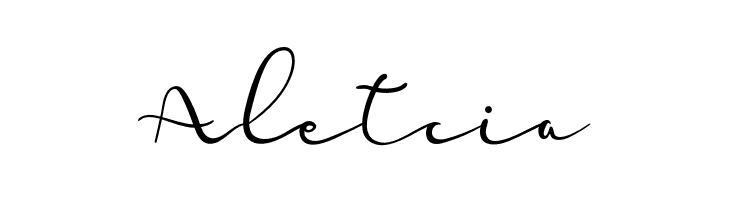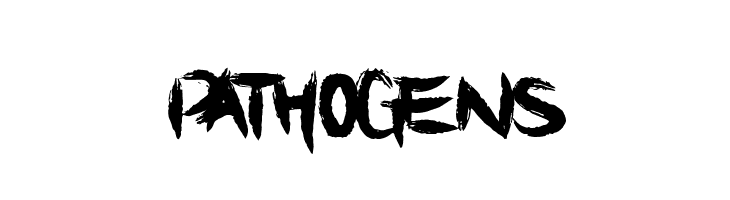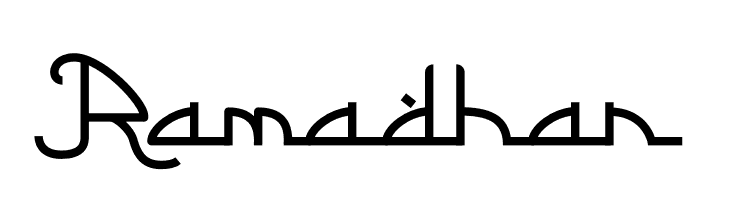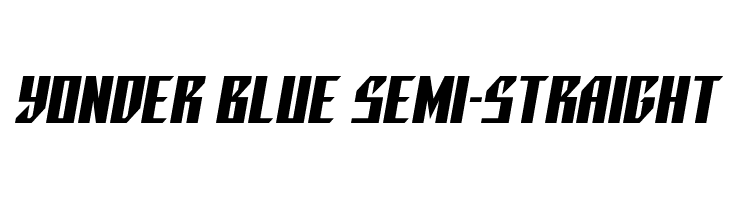
A modern, geometric font with a futuristic and dynamic design.
A lively handwritten font with dynamic strokes and a modern, artistic flair.
A bold, angular, and dynamic font with a geometric style and italic flair.
A bold, 3D-effect font with sharp angles and a graffiti-inspired style.
A rough, hand-drawn font with sharp angles and a gritty, urban aesthetic.
A flowing, cursive script font with elegant, connected strokes.
A bold, brush-style font with dynamic, hand-painted strokes.
A bold, italic serif font with elegant curves and strong presence.
A sleek, modern italic font with medium contrast and condensed spacing.
A bold, geometric font with a retro 3D video game aesthetic.